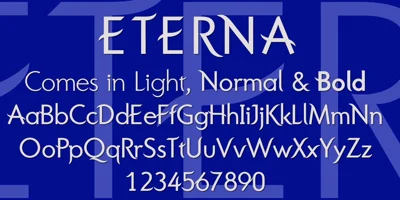
Eterna Font
Eterna Font is a sophisticated and timeless typeface, celebrated for its enduring elegance and refined readability. It's an impeccable choice for projects that demand a sense of heritage, luxury, and meticulous craftsmanship. Picture it on high-end stationery, sophisticated invitations for exclusive events, the distinguished branding of a legacy business, or the classic layout of a fine art publication. Its inherent grace also makes it perfect for elegant website designs, traditional book covers, and any application where a sense of lasting quality and understated beauty is paramount, ensuring your message resonates with authenticity and style.
What makes Eterna Font truly exciting is its balanced proportions and a design that feels both classic and perpetually fresh. Whether it's a beautifully structured serif with subtle details or a meticulously crafted sans-serif with a graceful stance, it conveys a profound sense of establishment and reliability. This font doesn't just display text; it enhances the perceived value and trustworthiness of your content. It's a powerful tool for designers aiming to create an impression of enduring quality and a distinguished presence, elevating brand identity and communication.
The Eterna Font family typically offers a comprehensive suite of weights and styles to provide maximum versatility for diverse design needs. You'll commonly find Eterna Font Regular, Eterna Font Italic, and Eterna Font Bold, which are essential for creating clear visual hierarchies. Depending on its specific design and the designer's intent, it might also include Eterna Font Light for a delicate touch or more robust options like Eterna Font Black for impactful headlines. This extensive range allows designers to maintain consistency and achieve refined aesthetic harmony across all their creative endeavors. Discover the enduring appeal of Eterna Font for your next project.